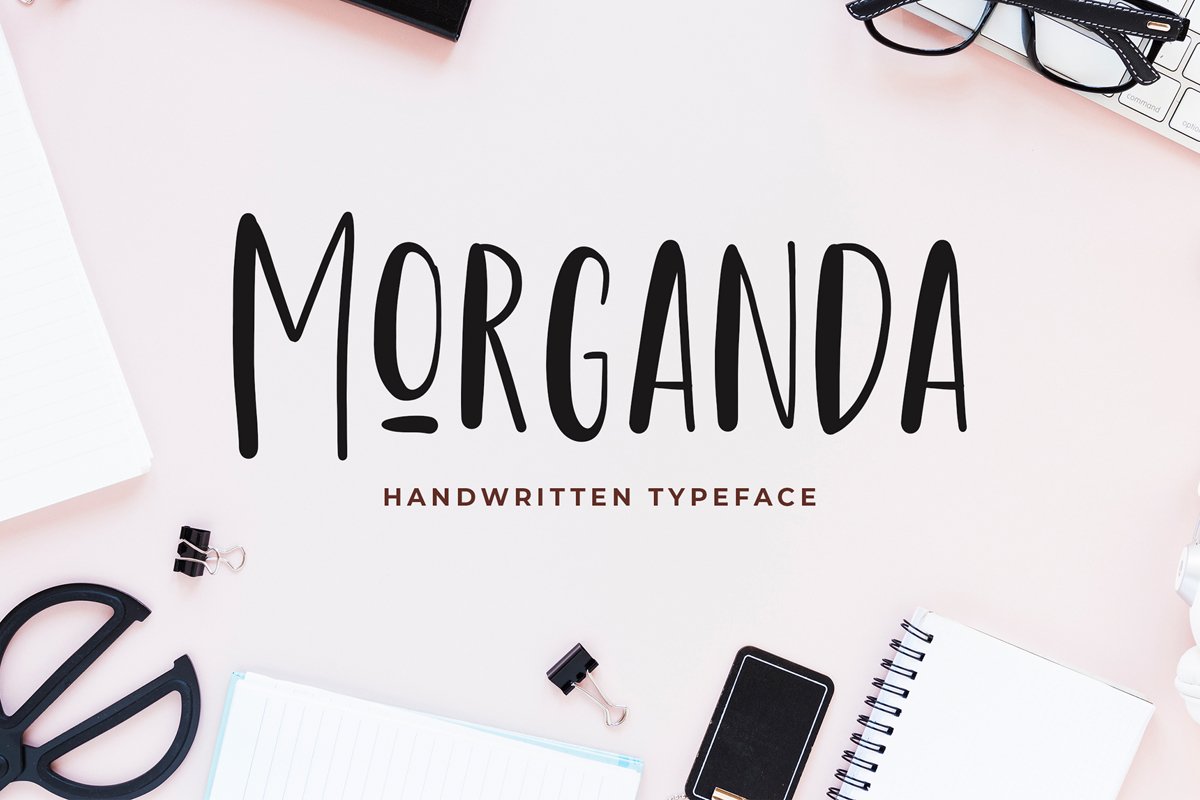
Morganda Handwritten Font
Morganda
Morganda is handwritten font that perfect for branding projects, logo, tshirt designs, social media posts, advertisements, product packaging, product designs, label, watermark, invitation, stationery and any projectsWhat's Included :